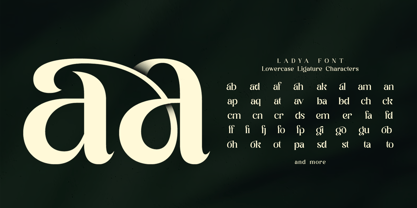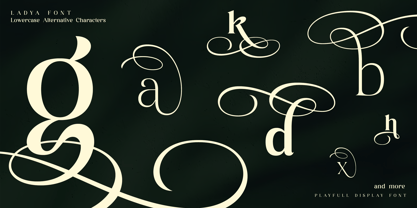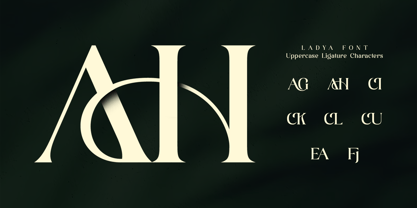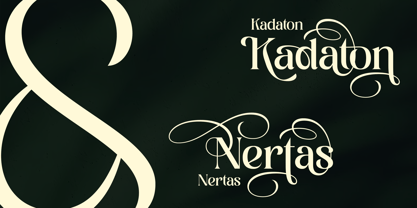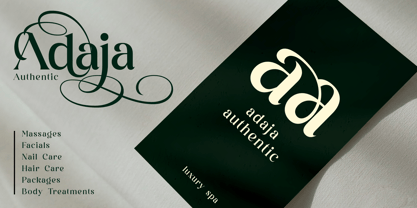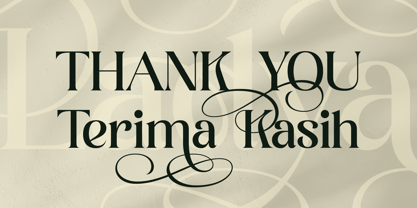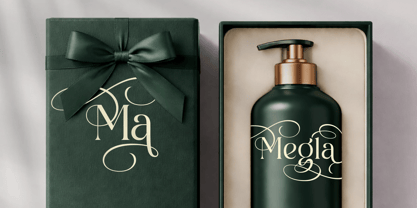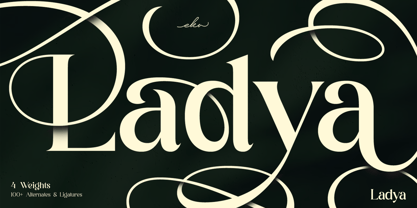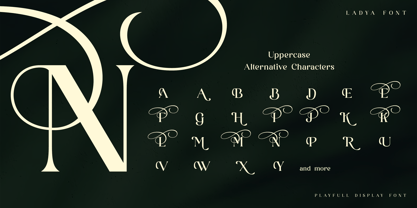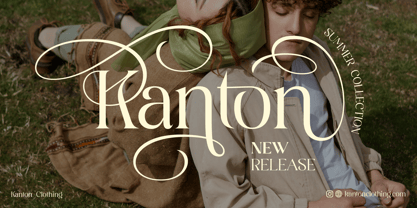
Ladya
by Ekahermawan
The Ladya Font Family was designed by Putu Eka Hermawan and published by Ekahermawan. Ladya contains 4 styles and family package options. More about this family
Ladya is a sophisticated serif display font designed to bring elegance and refinement to your creative projects. With beautifully crafted letterforms, stylish ligatures, and a rich collection of beautiful alternates, Ladya offers endless possibilities for creating distinctive and eye-catching typography. Blending classic charm with modern aesthetics, Ladya is perfect for designs that demand a luxurious and graceful touch. Its expressive alternates and decorative swashes make it ideal for creating unique logos, elegant headlines, and premium branding materials.
Features:
• Uppercase & Lowercase
• Numbers & Punctuation
• Multilingual Support
• Stylistic Alternates
• Ligatures
• Swirly Decorative Characters
Ladya font Perfect for branding, logos, editorial designs, magazine covers, packaging, wedding invitations, beauty products, fashion campaigns, and premium typography projects. Bring timeless elegance to your designs with Ladya — a serif display font crafted for sophisticated and standout creations.
Designers: Putu Eka Hermawan
Foundry: Ekahermawan